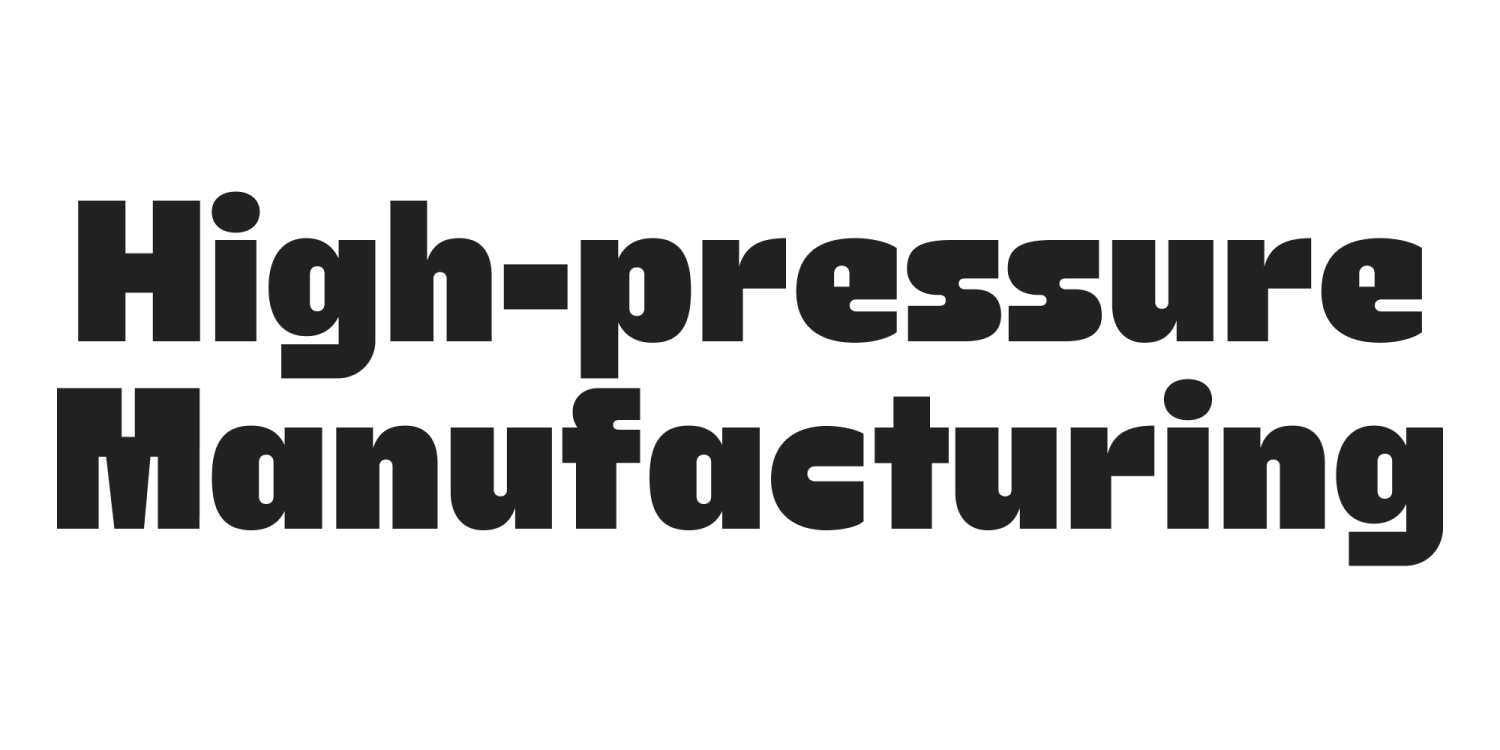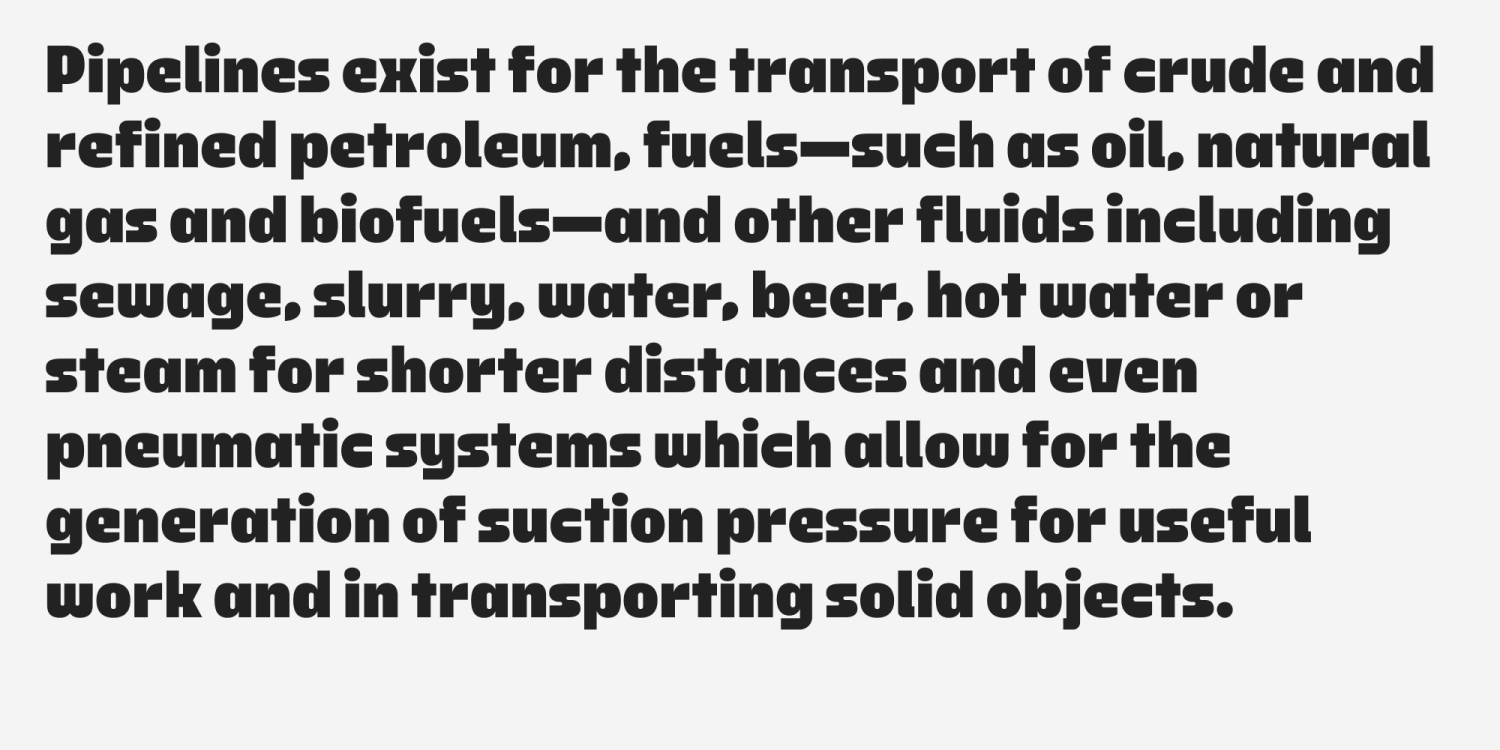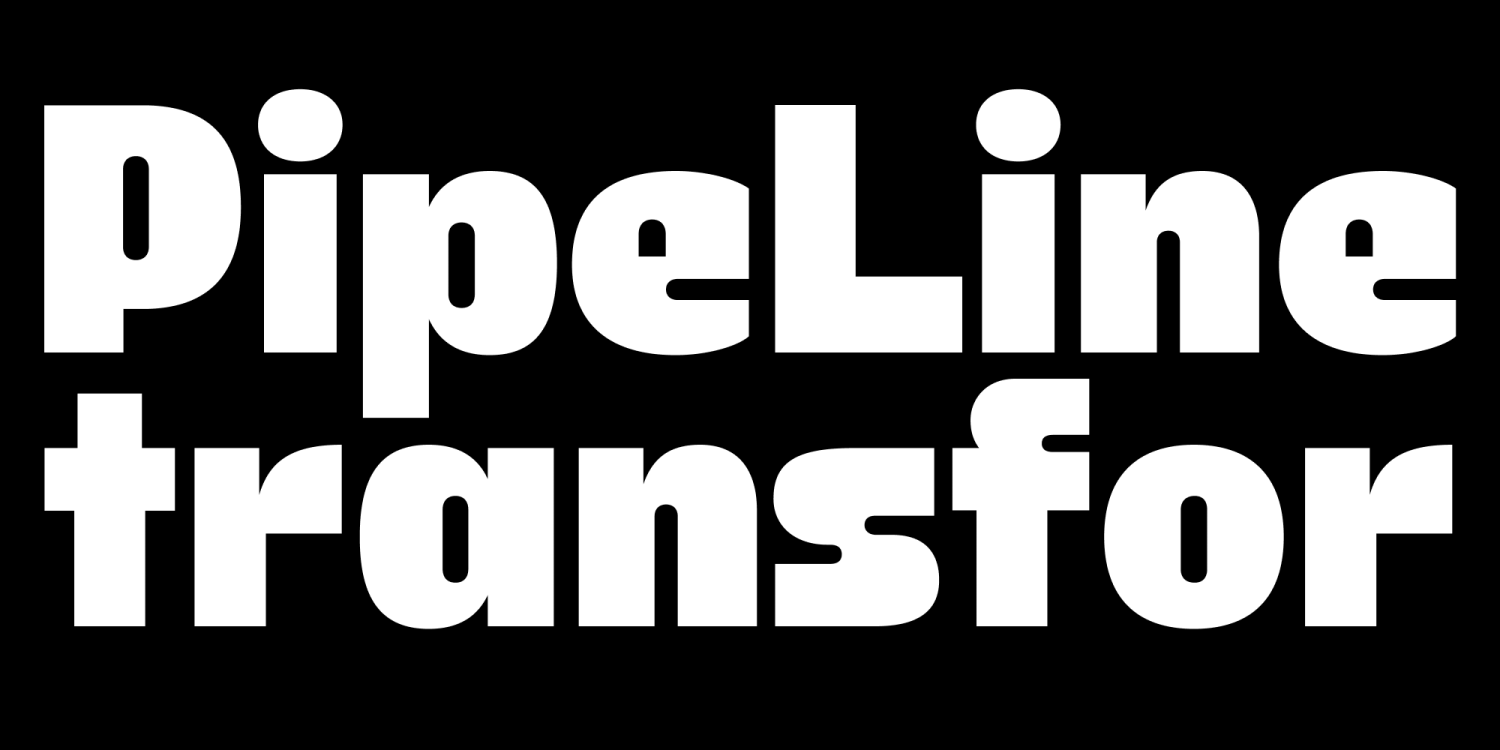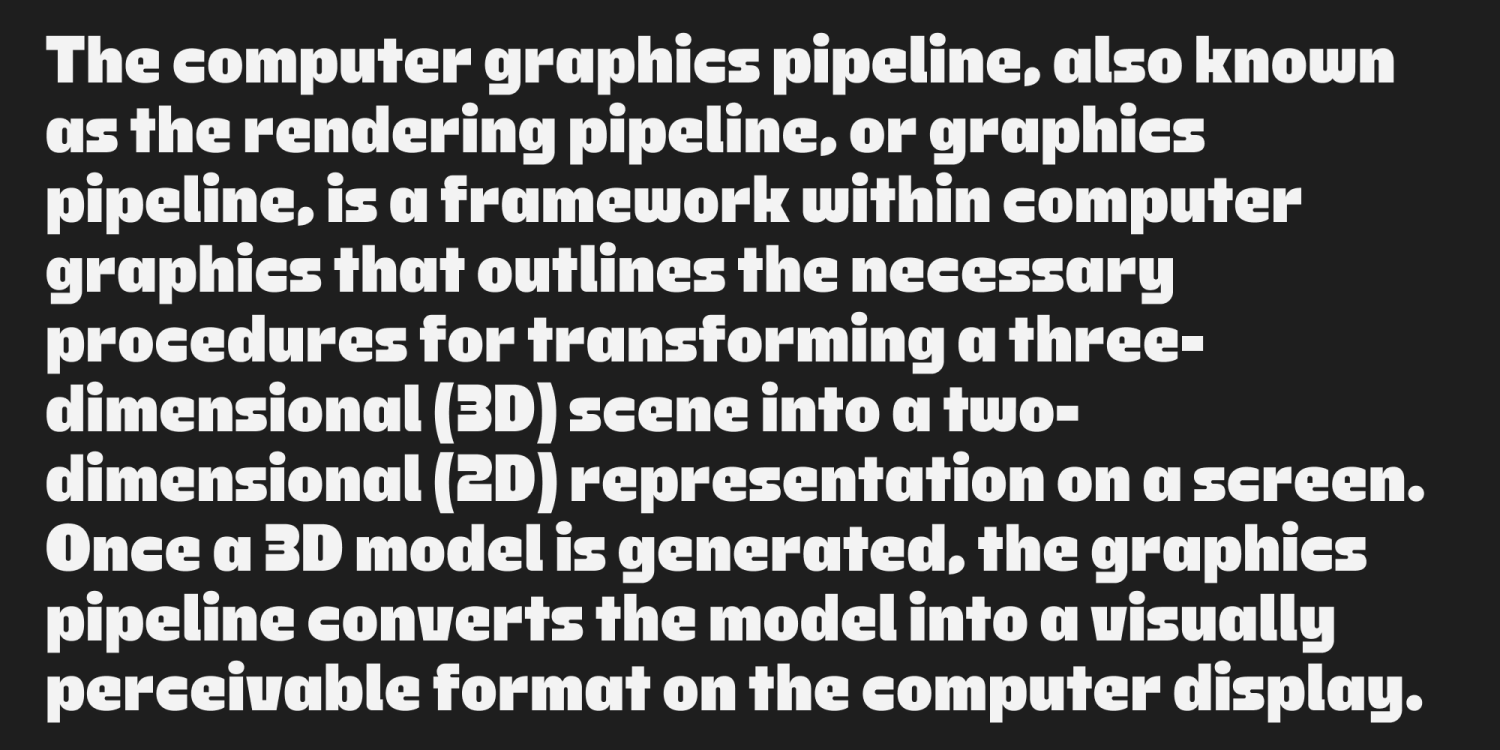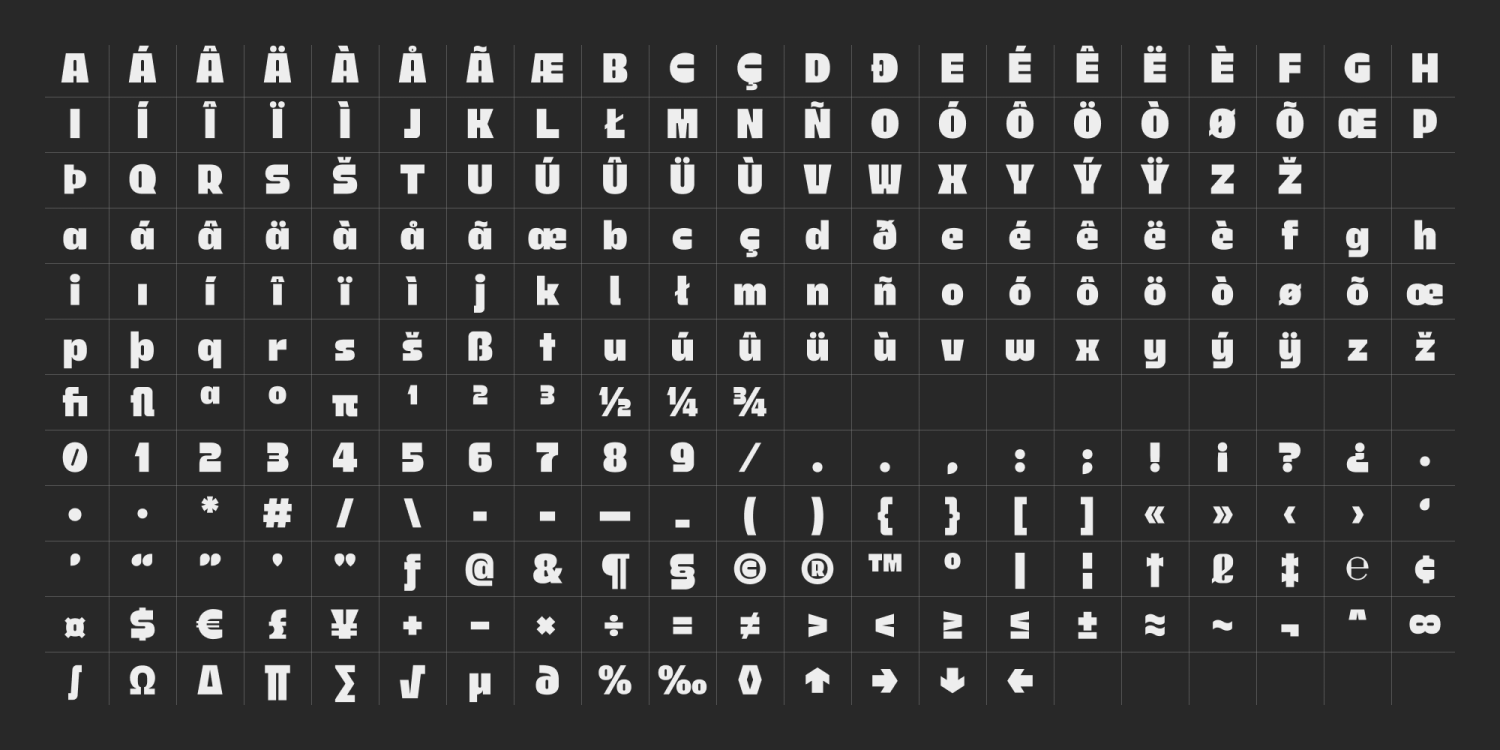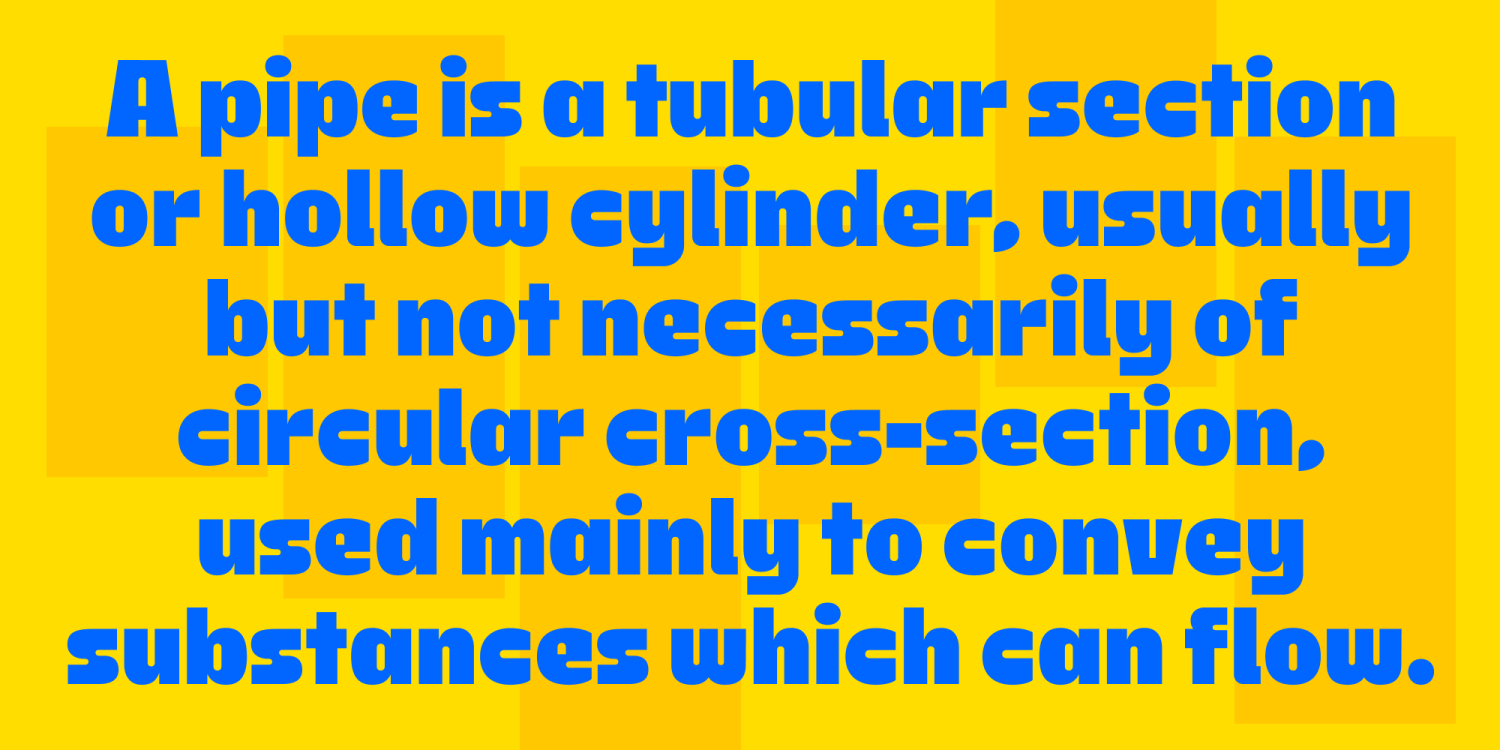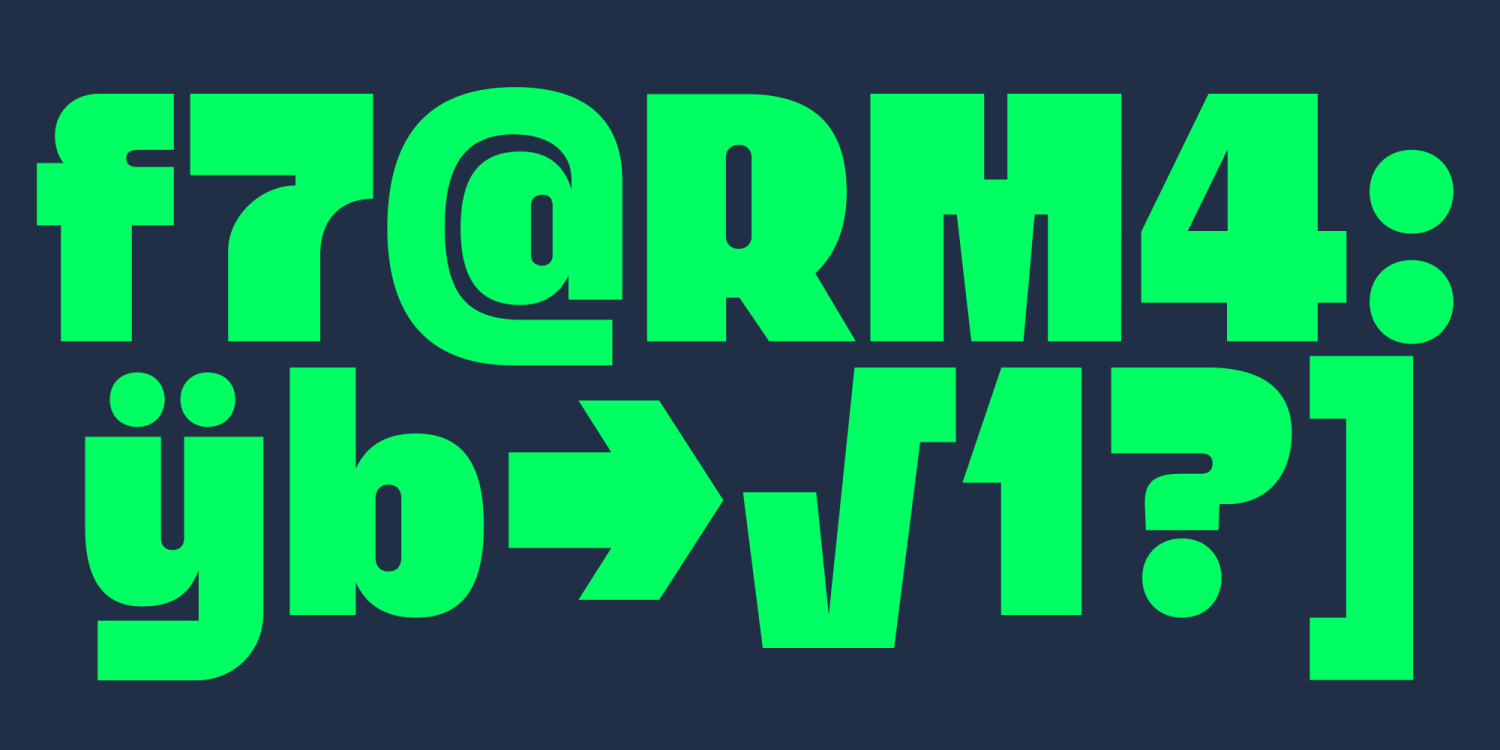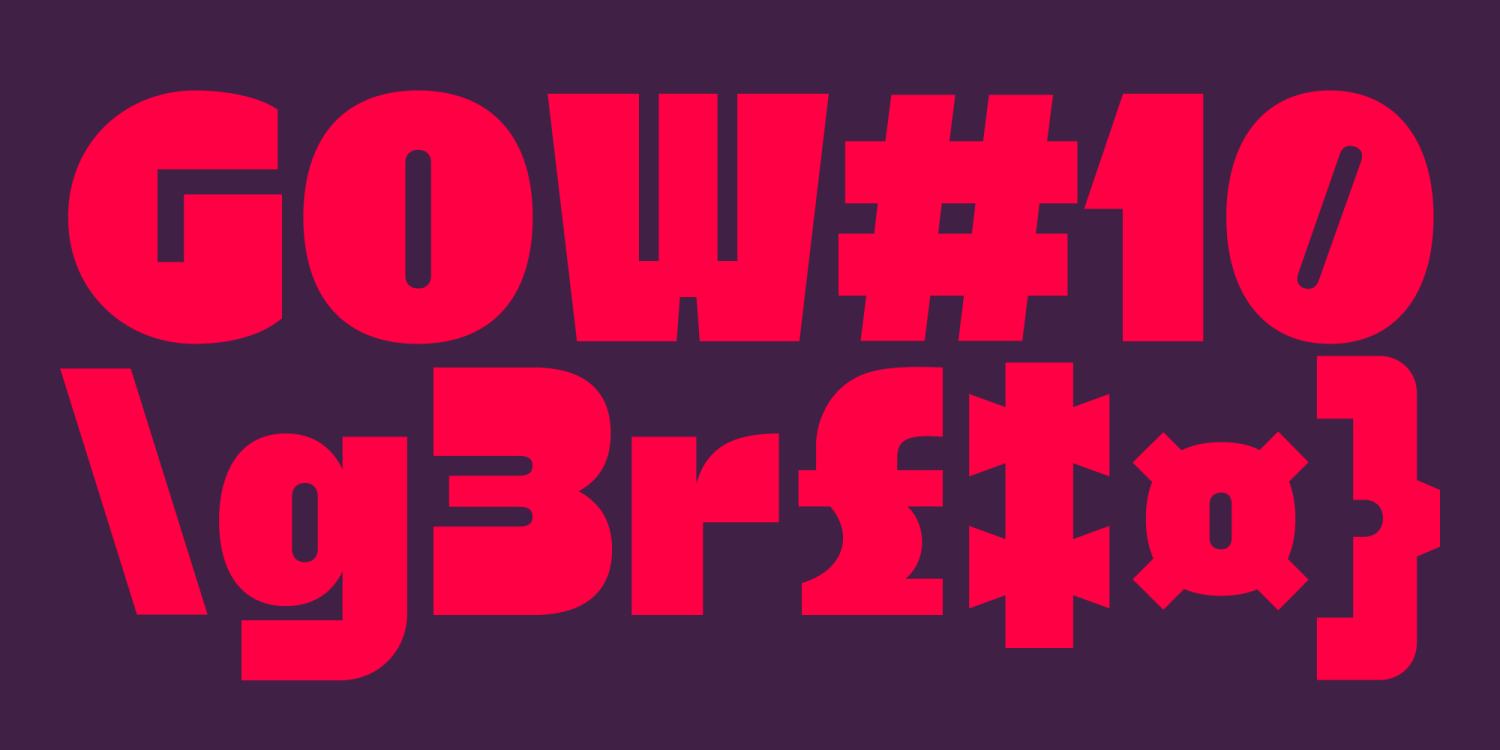
NtT Pipy
NtT Pipy is a bold display sans-serif inspired by the structural forms of pipes.
With dramatic stroke contrasts at connection points, it creates a distinctive visual rhythm that delivers powerful impact in posters and headlines. The interplay of curves and straight edges adds a unique tension, balancing softness with strength and elevating it beyond a simple geometric typeface.
Infused with contemporary and refined details, NtT Pipy is an ideal choice for brand identity, editorial design, and digital campaigns—anywhere strong, memorable typography is required.